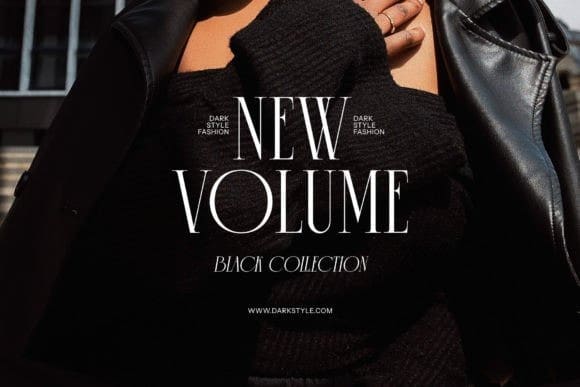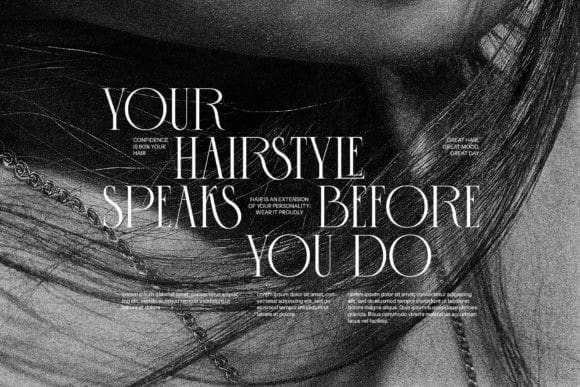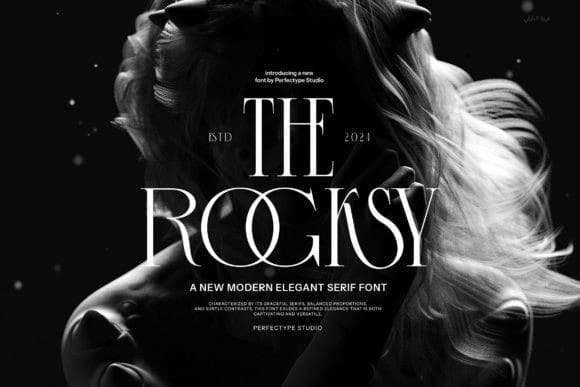
The Rogksy Font
The Rogksy Font is a stylish and modern serif font. It has elegant, sharp lines and a classic feel, making it great for headlines, logos, or any design that needs a sophisticated look. Its unique details give it a fresh and trendy vibe, perfect for both print and digital use.